Gosh, is that the time already? October has arrived with a confident energy, and the month's type releases reflect this sense of purpose and ambition. From architectural inspirations drawn from Danish modernism to pixel-based experiments that celebrate productive constraints, our selection demonstrates how foundries are pushing more boundaries than we've seen in some time.
One of the major themes for this type this month appears to be the tension between systematic construction and expressive character. Several new releases demonstrate how rigid structural principles—whether geometric grids, historical references or modular systems—can become launching points for distinctive personality rather than limitations.
Whether you're seeking a grotesque with genuine warmth, a display face that celebrates architectural monumentality, or a versatile family that seamlessly transitions between serif and sans-serif worlds, read on.
1. Crit by Element Type
Designed by Doğukan Karapınar and İbrahim Kaçtıoğlu, Crit reinterprets early grotesque sans-serif models through contemporary sensibilities, creating an eight-weight family with matching italics that honours mid-century phototypesetting traditions whilst addressing modern design requirements.
The typeface draws inspiration from an era when foundries like Helvetica and Akzidenz-Grotesk were often used interchangeably in phototype layouts, embracing this functional flexibility whilst introducing subtle formal innovations. Crit's character emerges through careful attention to proportion—a tall x-height combined with shorter ascenders and descenders creates tight, readable text that maintains clarity across applications.
As weights increase, counters shift toward squarer forms to prevent excessive weight accumulation, whilst ligatures appear strategically to aid readability. These quiet formal adjustments demonstrate how contemporary grotesque design can introduce character without sacrificing the neutrality that made their historical predecessors so versatile. The result is a steady, balanced typeface that functions as both a reliable workhorse and a distinctive voice.
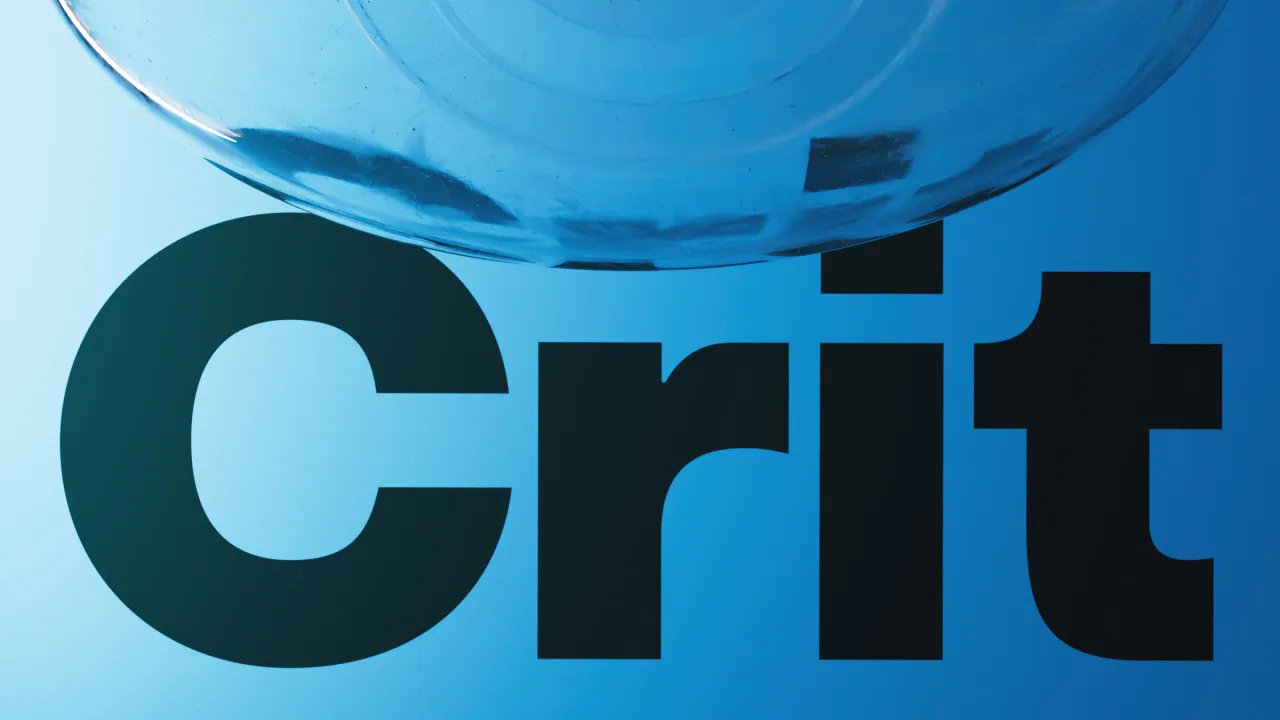
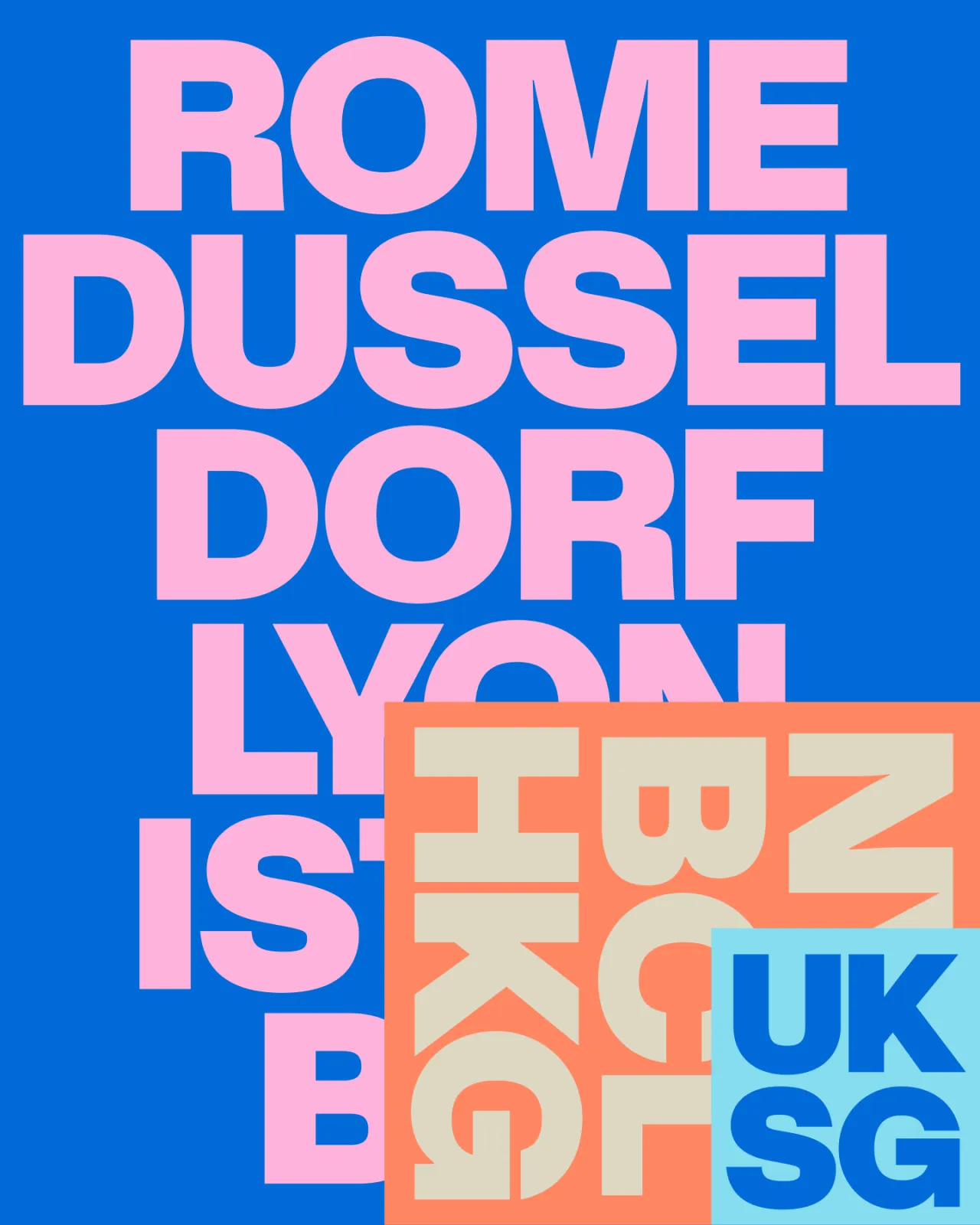
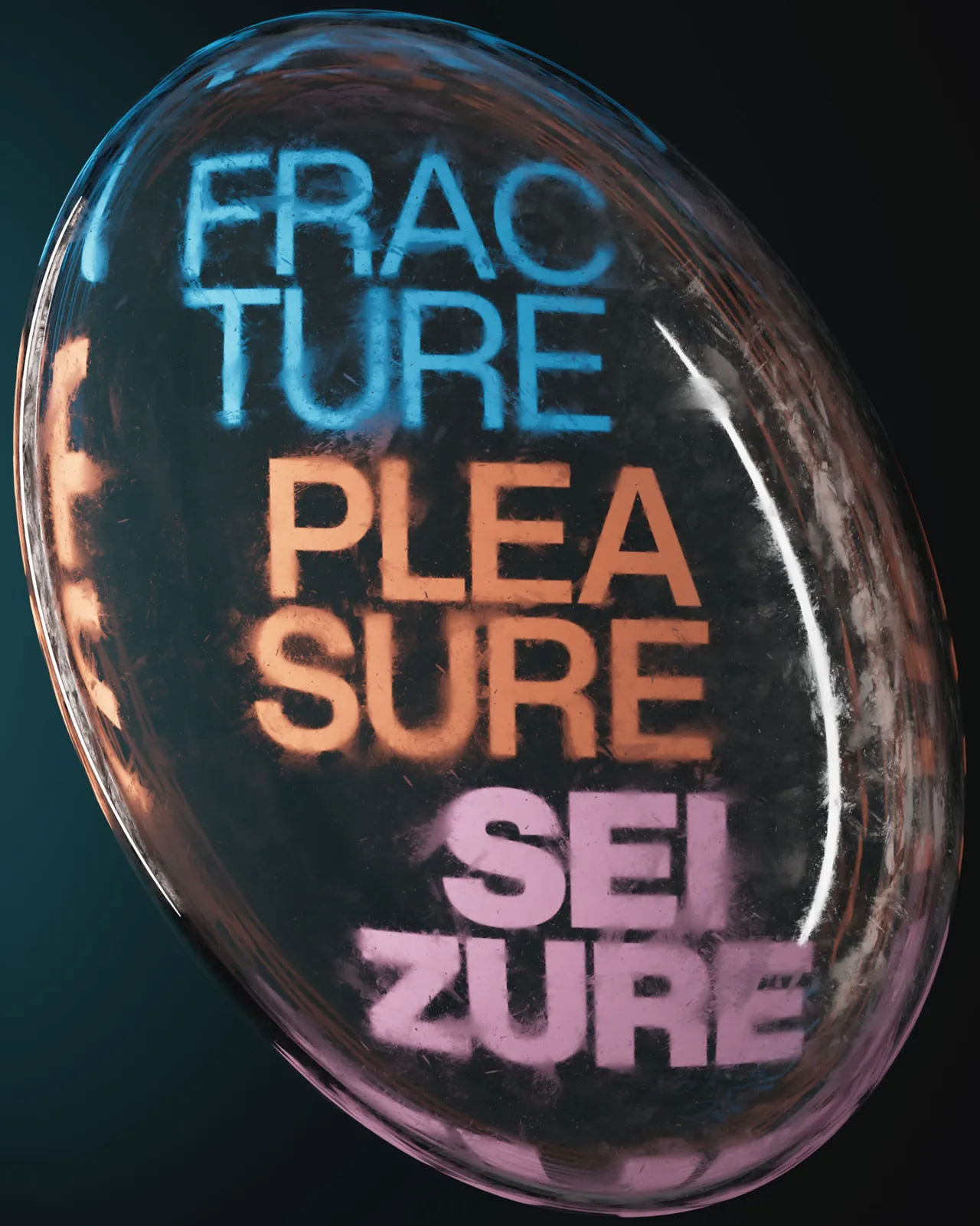
2. Grundtvig by REY Graphic
Reinaldo Camejo's latest experimental typeface draws inspiration from Copenhagen's iconic Grundtvig's Church. Created during Reinaldo's Master's programme at ELISAVA, this experimental font takes distinctive elements from the church's dramatic west façade—its towering verticality, stepped gables, and arched doorways—and translates them into geometric letterforms.
The typeface's character clearly emerges from this architectural DNA, with bold, geometric forms that echo the building's strong lines and monumental presence. But rather than attempting literal translation, Camejo has distilled the church's essential visual language into a cohesive typographic system that maintains both structural integrity and expressive power.
Since its initial release, Grundtvig has garnered international recognition, winning prestigious awards including ADG Laus, ADC*E Awards, and LAD Awards. Following its official release in collaboration with 6TM Magazine, Camejo has now developed a collection of physical specimens, including the award-winning original, a compact Mini version, an editorial Booklet, and even a keychain iteration.
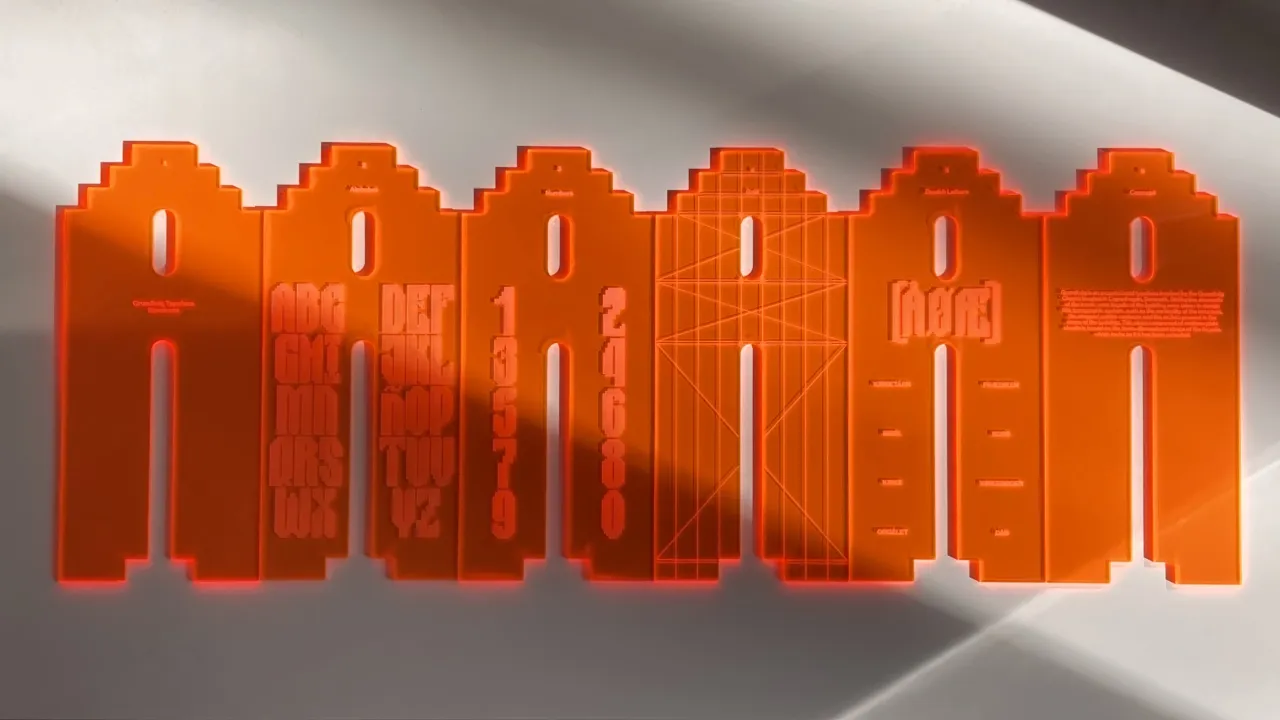
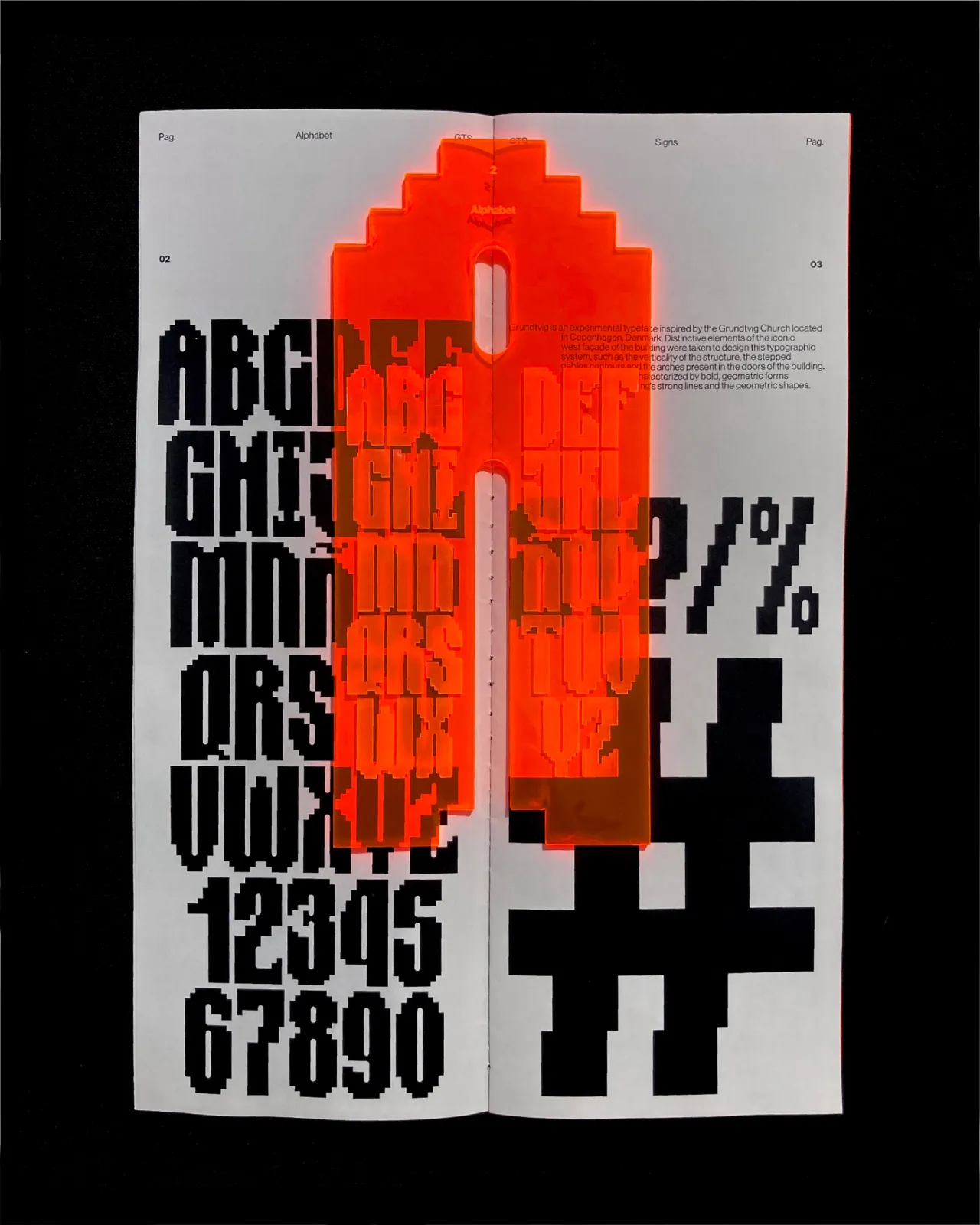
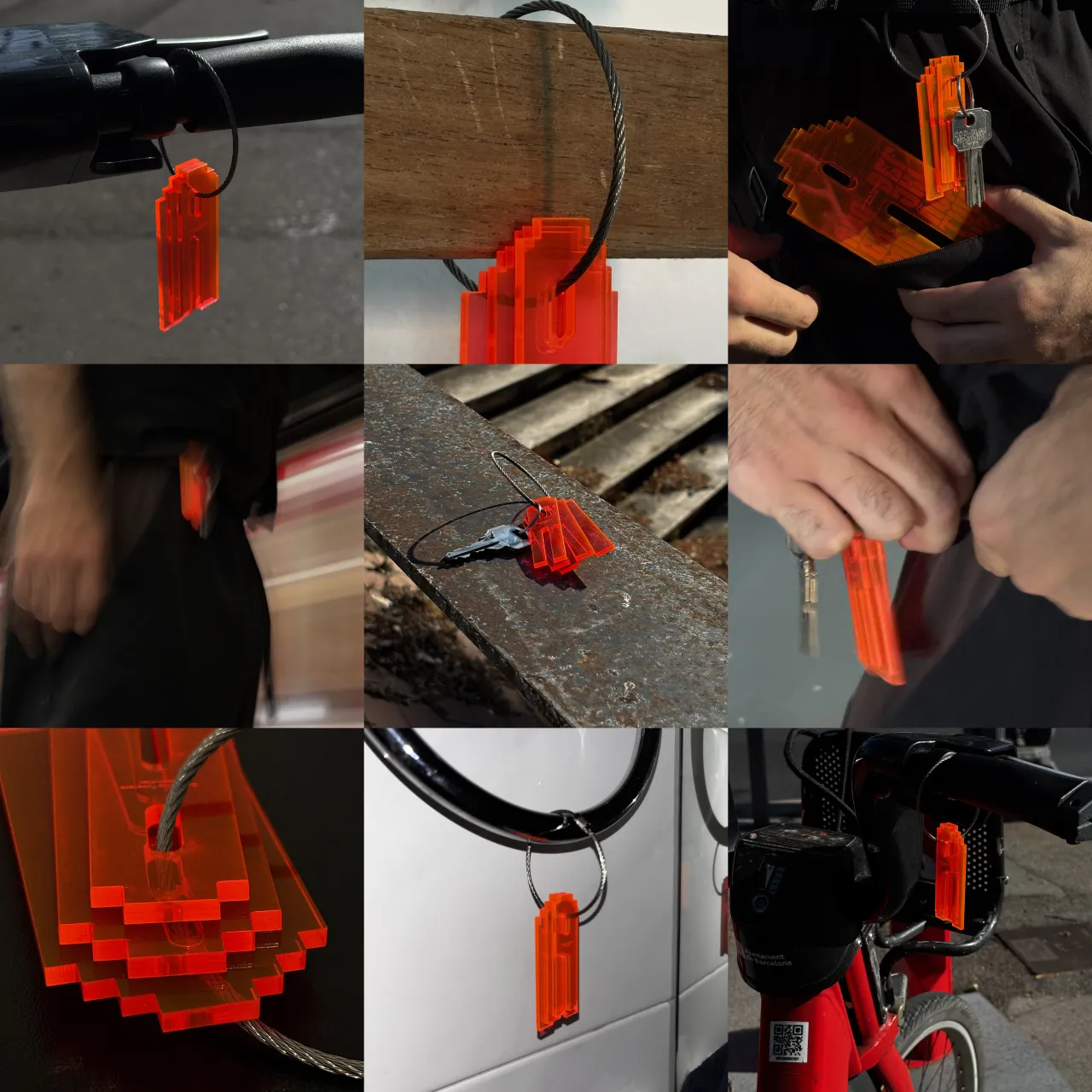
3. Perfektta by Displaay Type Foundry
Inspired by a photograph of an Italian road sign in Sardinia, Perfektta celebrates the beauty found in imperfection. Martin Vácha's design began with fascination for a strange-looking zero, presumed to be the result either of Italian workers finding it difficult to cut perfect ovals from foil, or simply creative pragmatism.
This rhombus-shaped zero became the foundation for a sans-serif family with narrow proportions and visible stem contrast. Further inspiration came from Alfabeto Stretto, the Italian road sign typeface, which also has a strange-looking zero. The name, Martin says, refers to "the imperfect construction that contrasts with some perfect shapes"—creating productive tension in the final aesthetic.
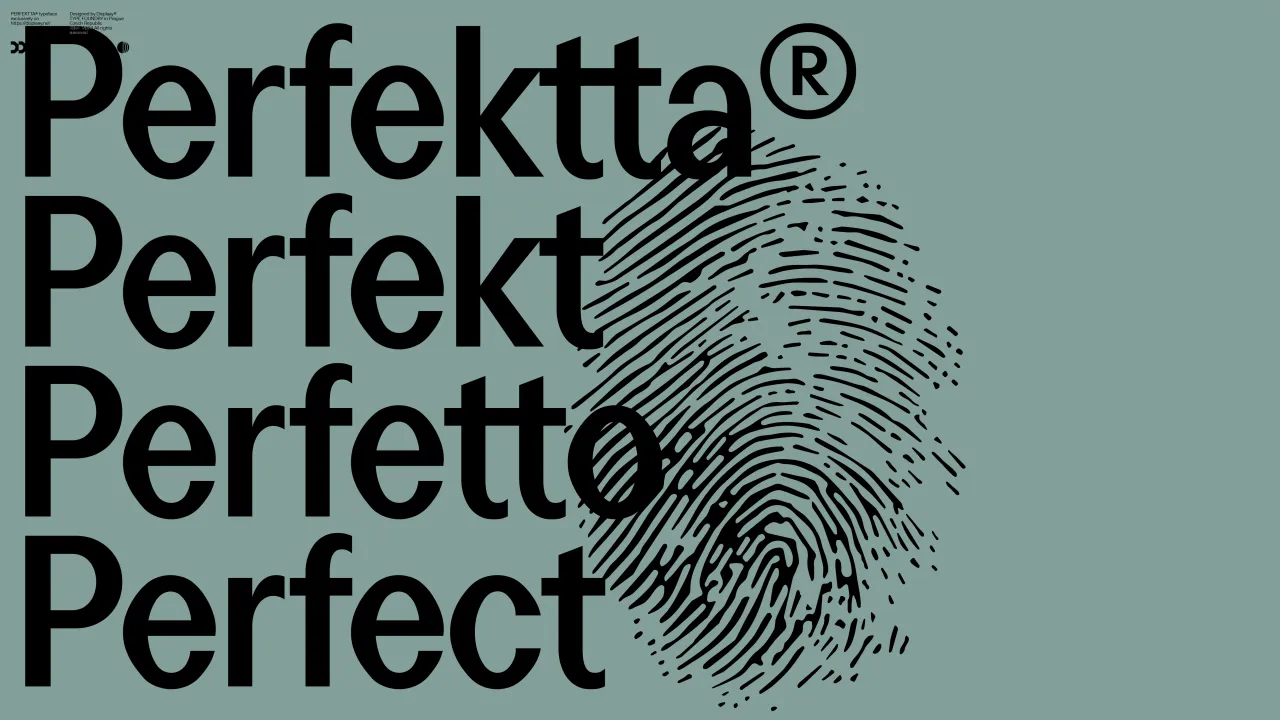
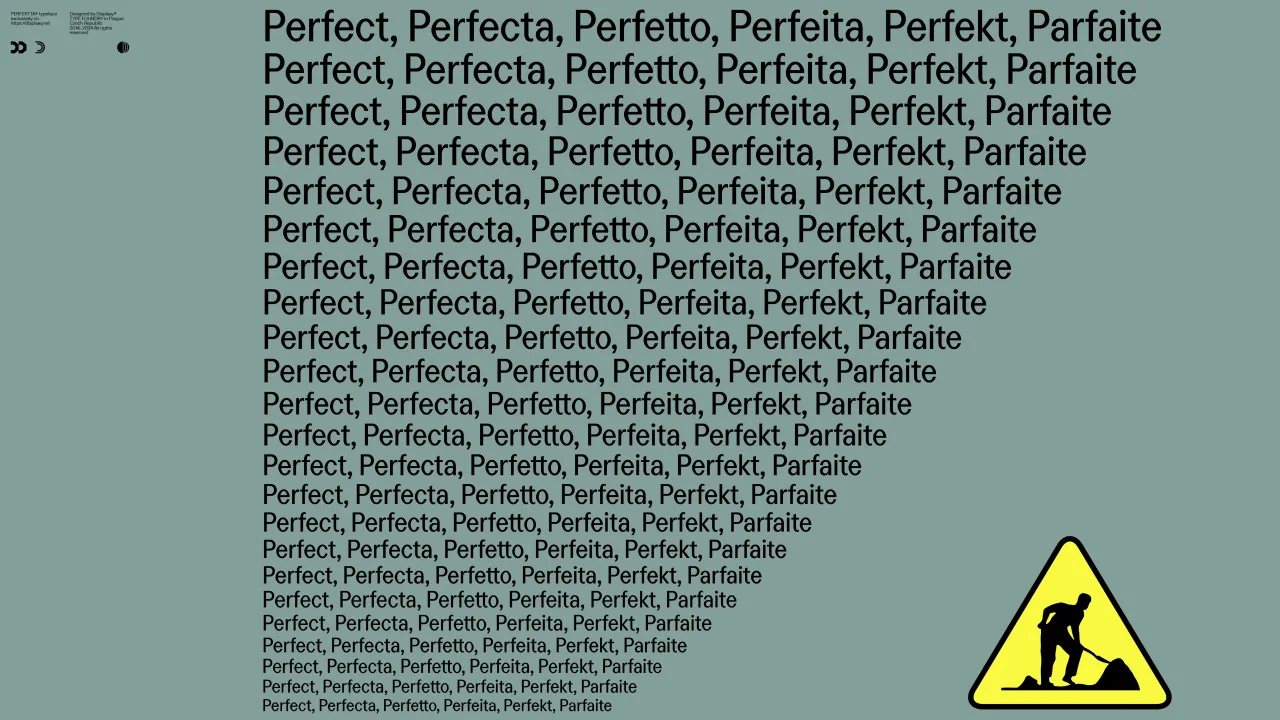
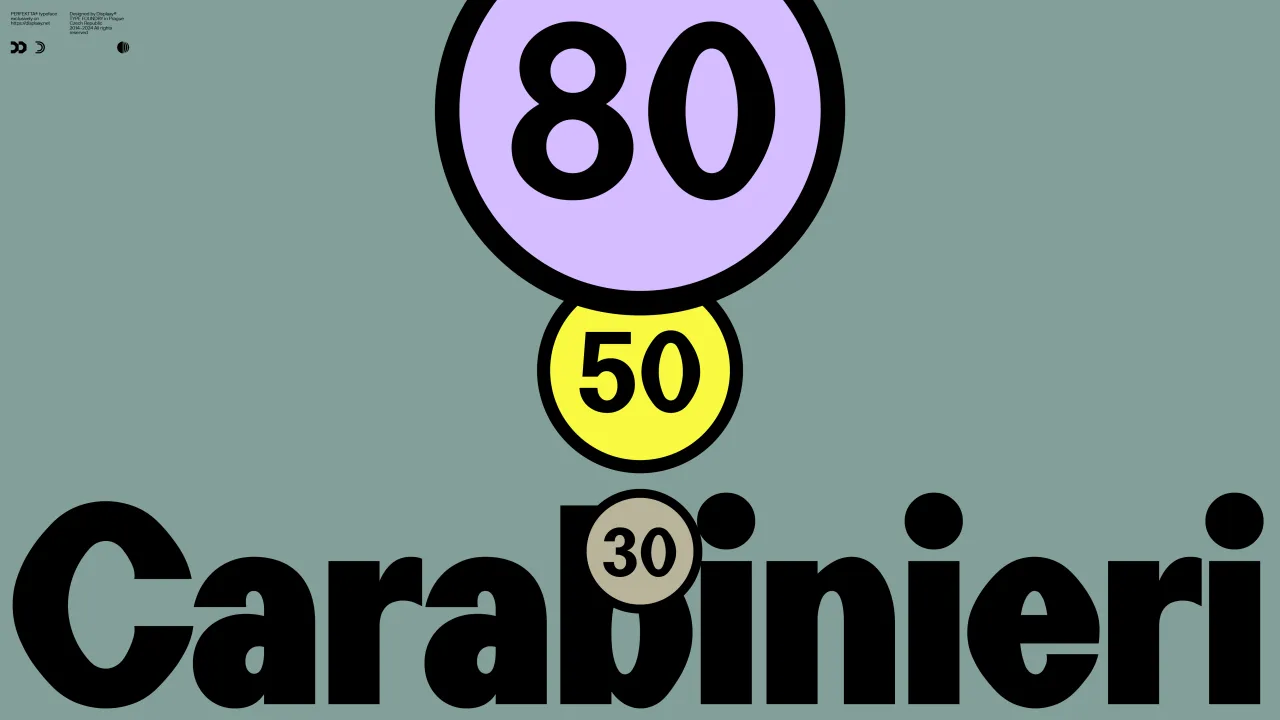
4. Season by Displaay Type Foundry
Martin Vácha's Season addresses one of typography's most enduring challenges: the choice between sans-serif and serif typefaces. Rather than requiring designers to select between these fundamental categories, Season offers a unified construction that seamlessly transitions between both worlds through variable font technology.
The concept explores transformation as a creative methodology, presenting sans-serif metamorphosis as a design tool rather than a binary choice. Each "season" of the typeface maintains quality and character whilst occupying different positions along the serif spectrum, allowing designers to fine-tune typographic voice according to specific contextual requirements.
This approach reflects the contemporary movement in typography toward flexibility and contextual adaptation. By treating the serif/sans-serif distinction as a continuum rather than a boundary, Season enables more nuanced typographic decision-making, particularly valuable for brand systems requiring both authoritative serif presence and clean sans-serif functionality.
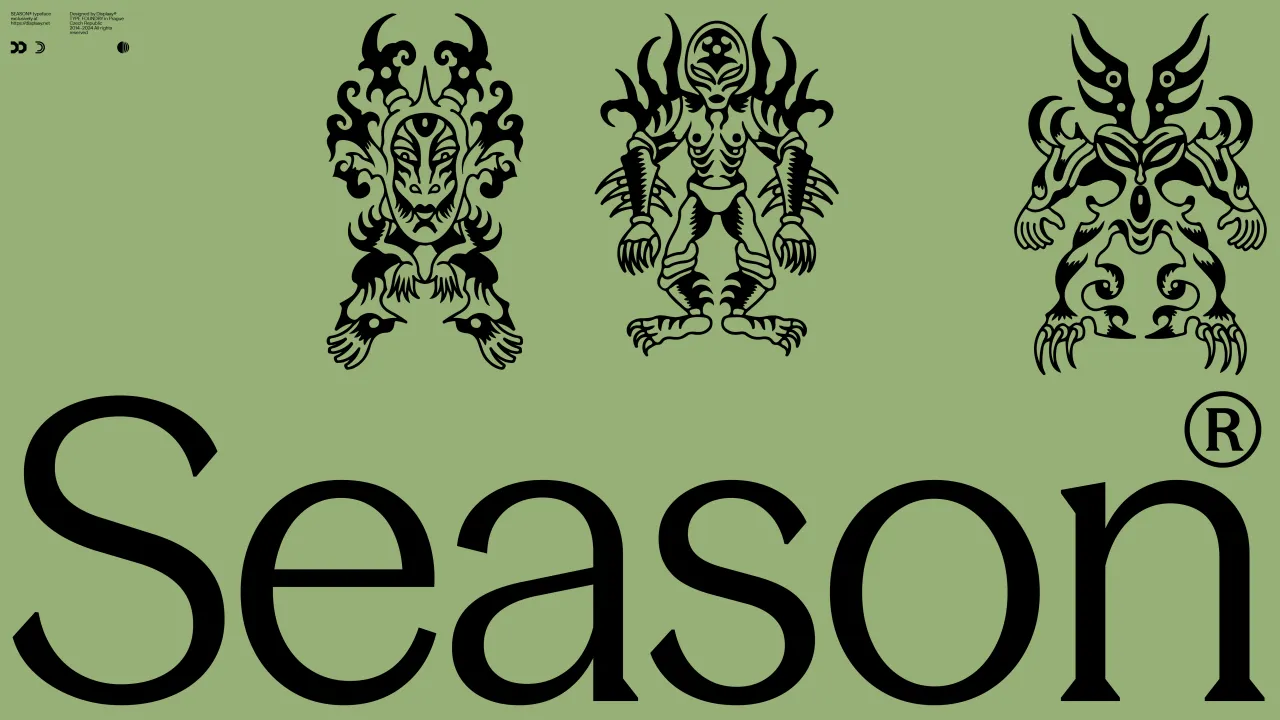
Supporting 1,222 characters per style with extensive OpenType features and support for Greek and Vietnamese languages, Lintel Next does an excellent job of balancing geometric precision with human-centred warmth. A good choice for branding, editorial or UI design.